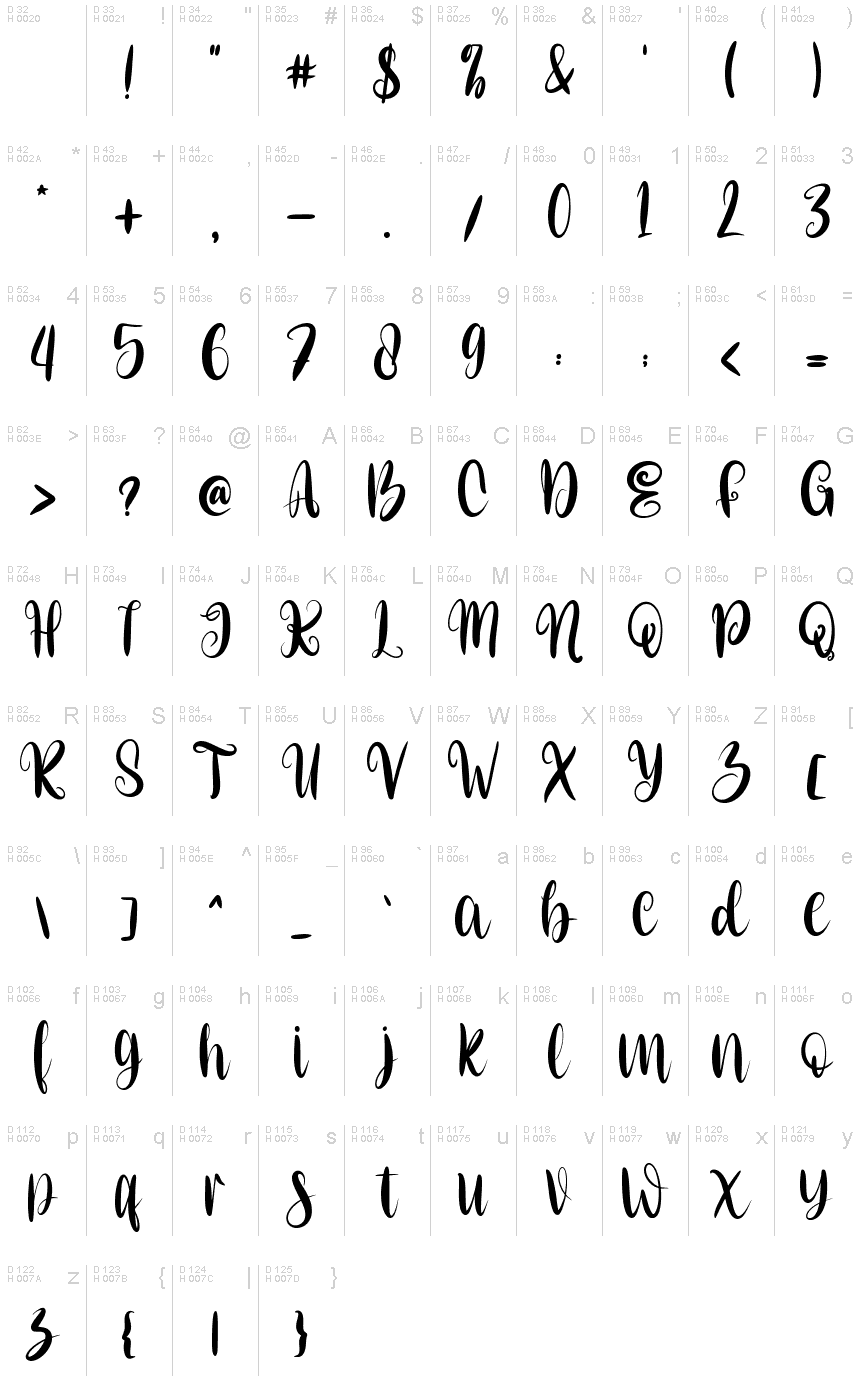
Christmas Chimney, designed by Letterara, is a font that captures the warmth and joy of the holiday season with its handwritten style. Its condensed width adds a touch of elegance and sophistication, making it an excellent choice for festive projects that require a personal touch without sacrificing readability.
The charm of Christmas Chimney lies in its ability to evoke the coziness of wintertime nostalgia through its fluid, cursive strokes reminiscent of heartfelt holiday greetings. This font's aesthetic appeal is rooted in its balance between casual flair and structured formality, enabling designers to convey messages with both whimsical grace and professional poise.
Ideal for seasonal advertising, greeting cards, or event invitations, Christmas Chimney offers versatility for creatives seeking to infuse their work with a signature style that resonates with the celebratory essence of Christmas. Whether for print or digital media, this font stands out as a delightful choice that harmonizes visual allure with functional design.